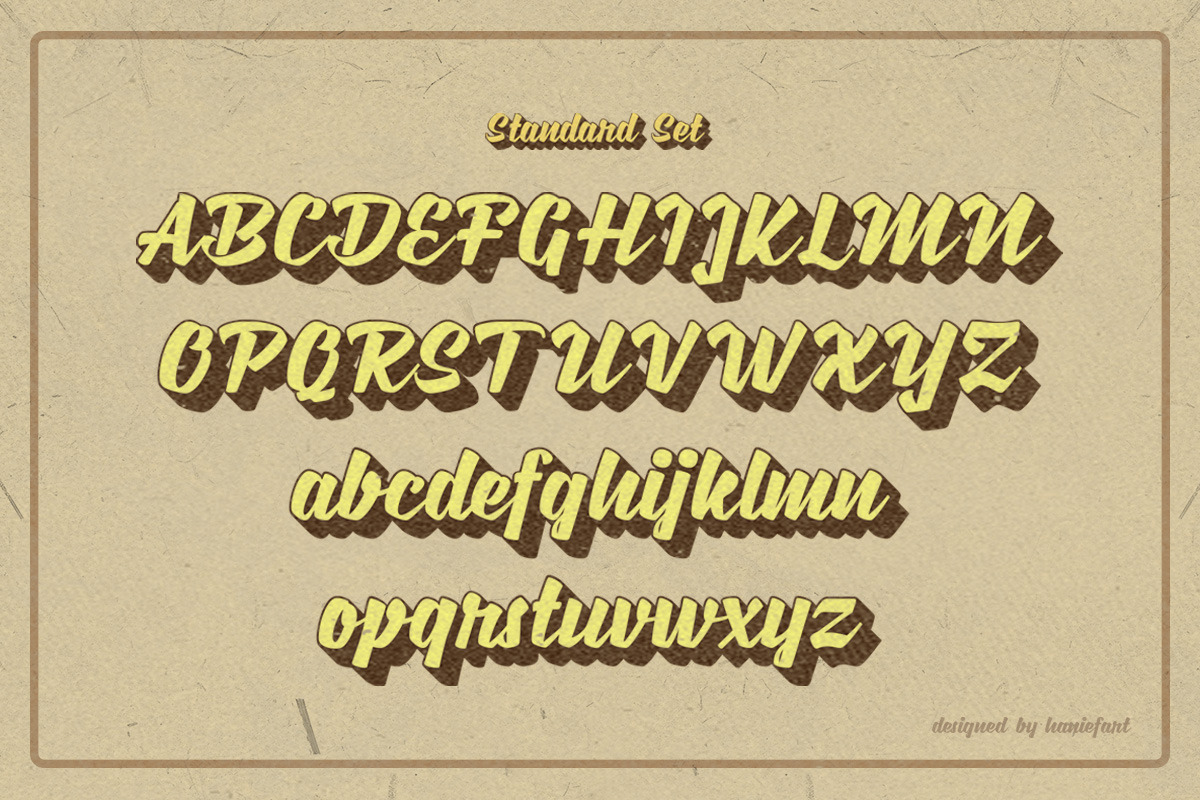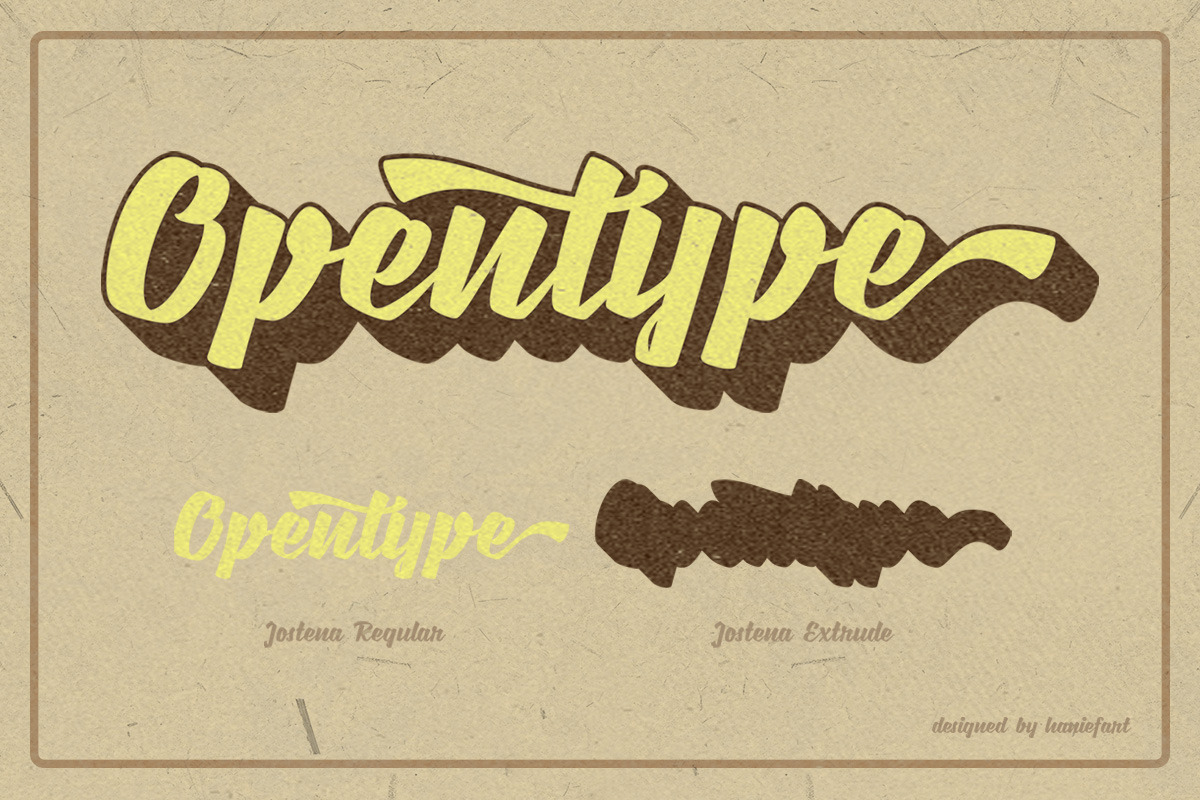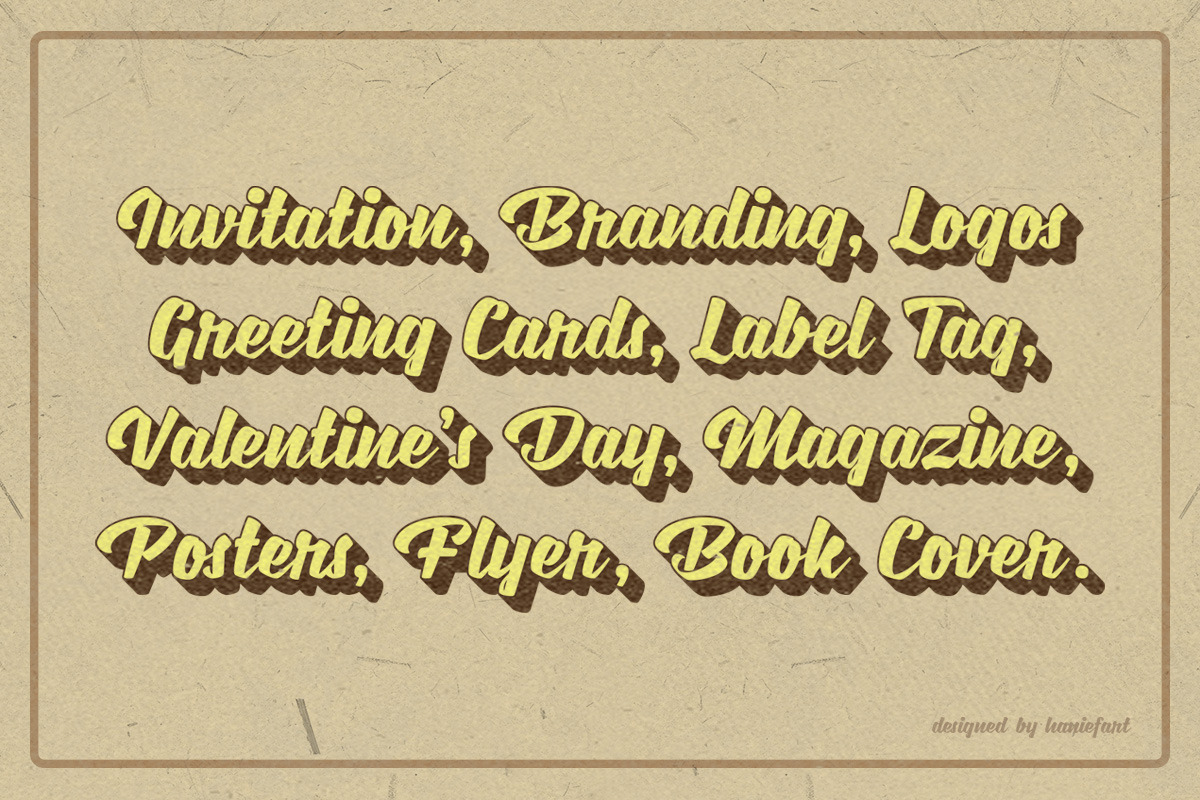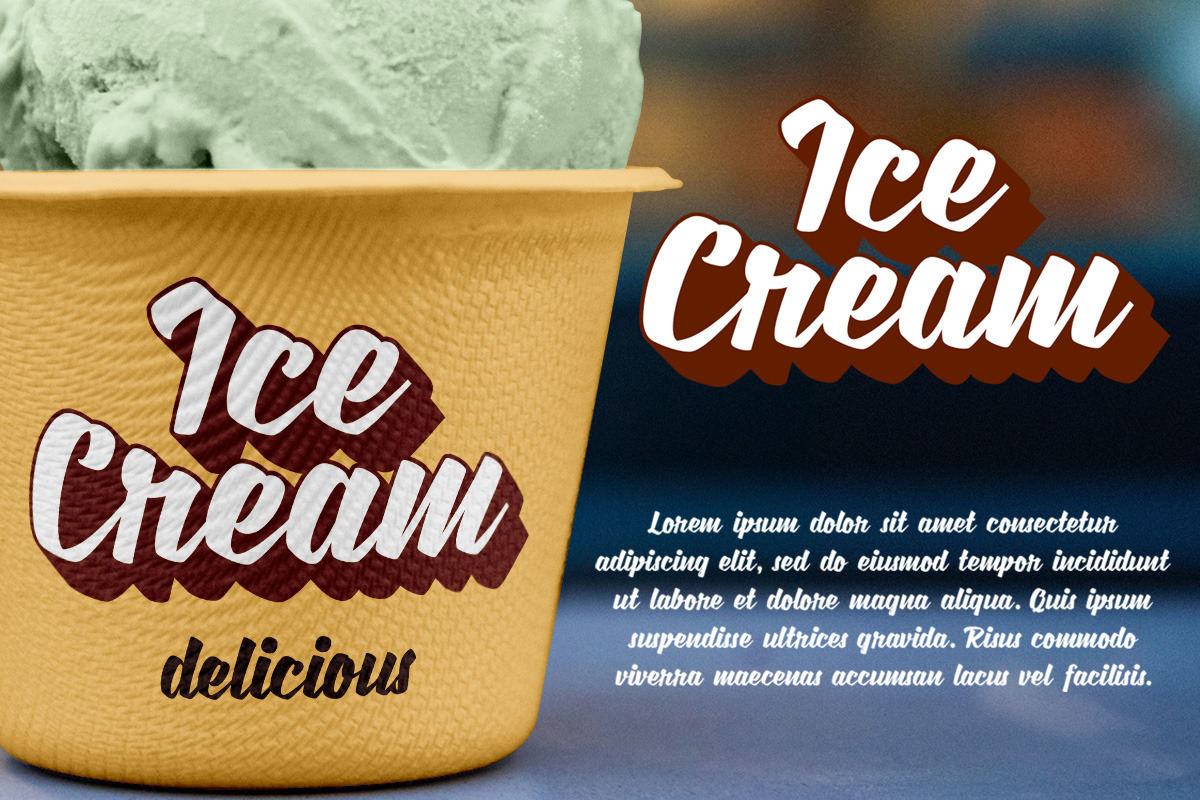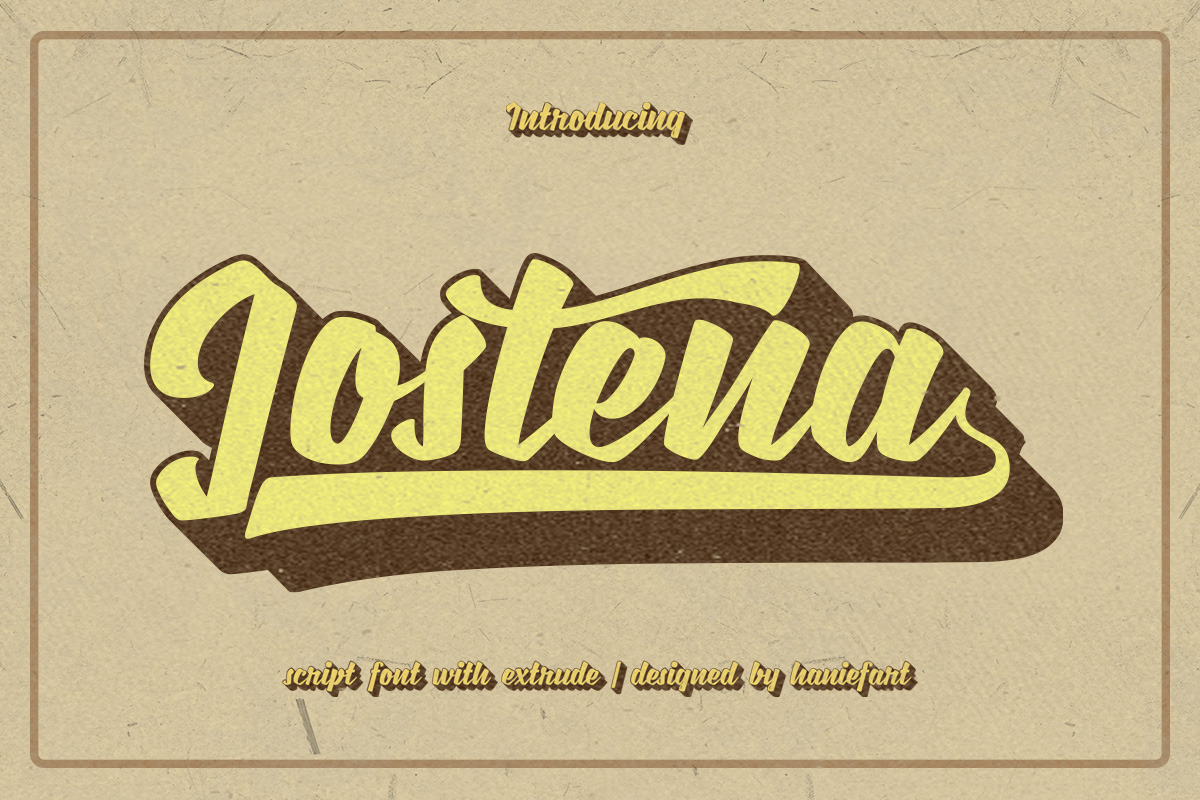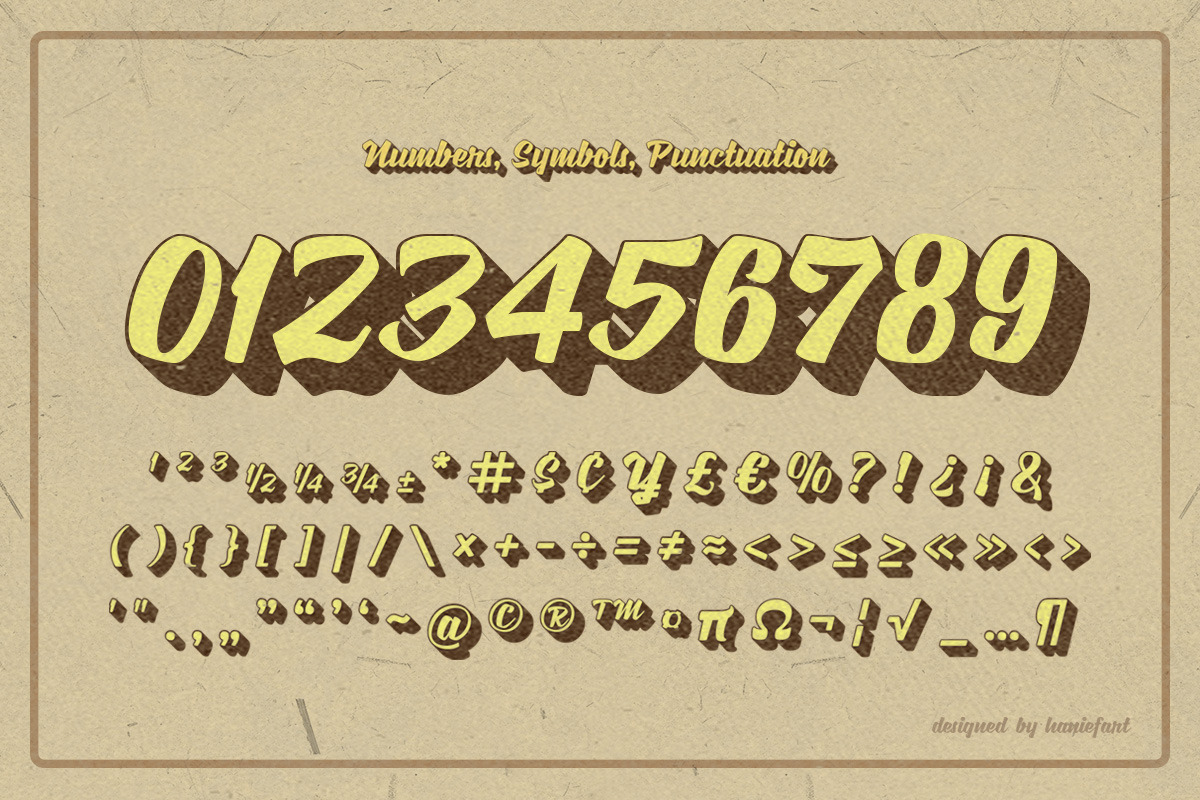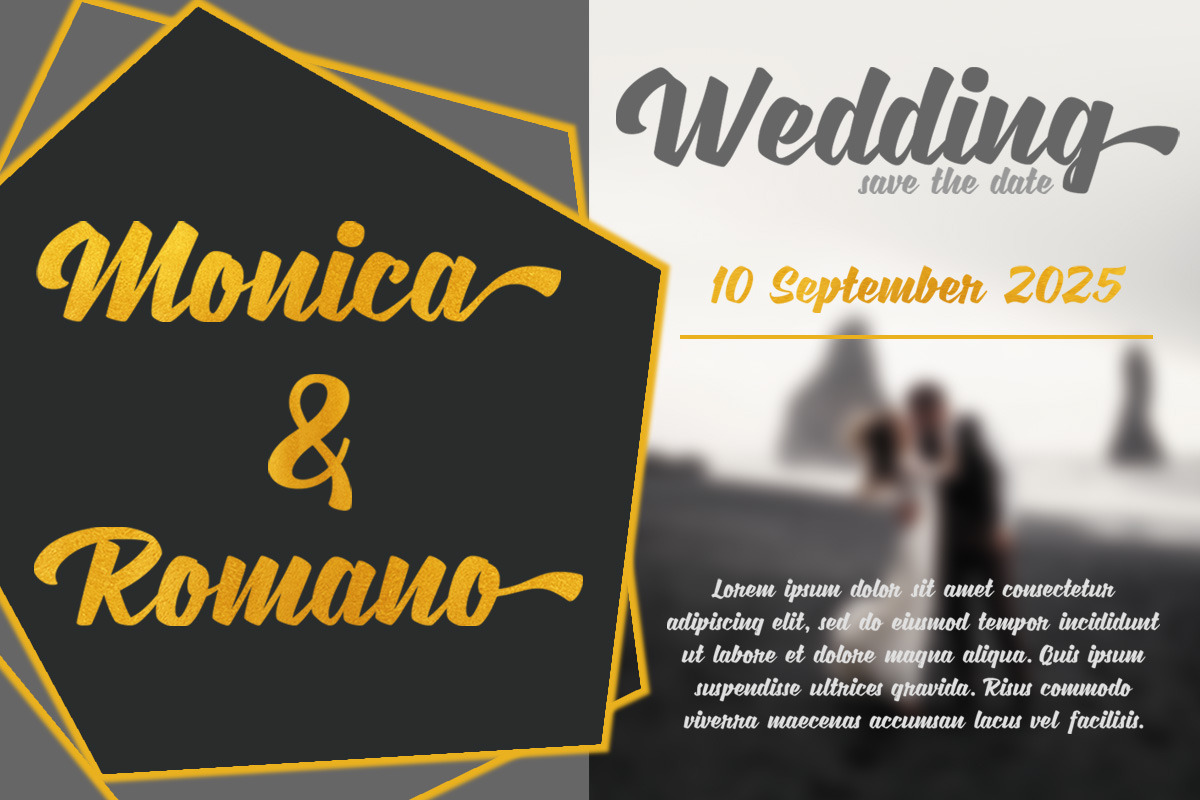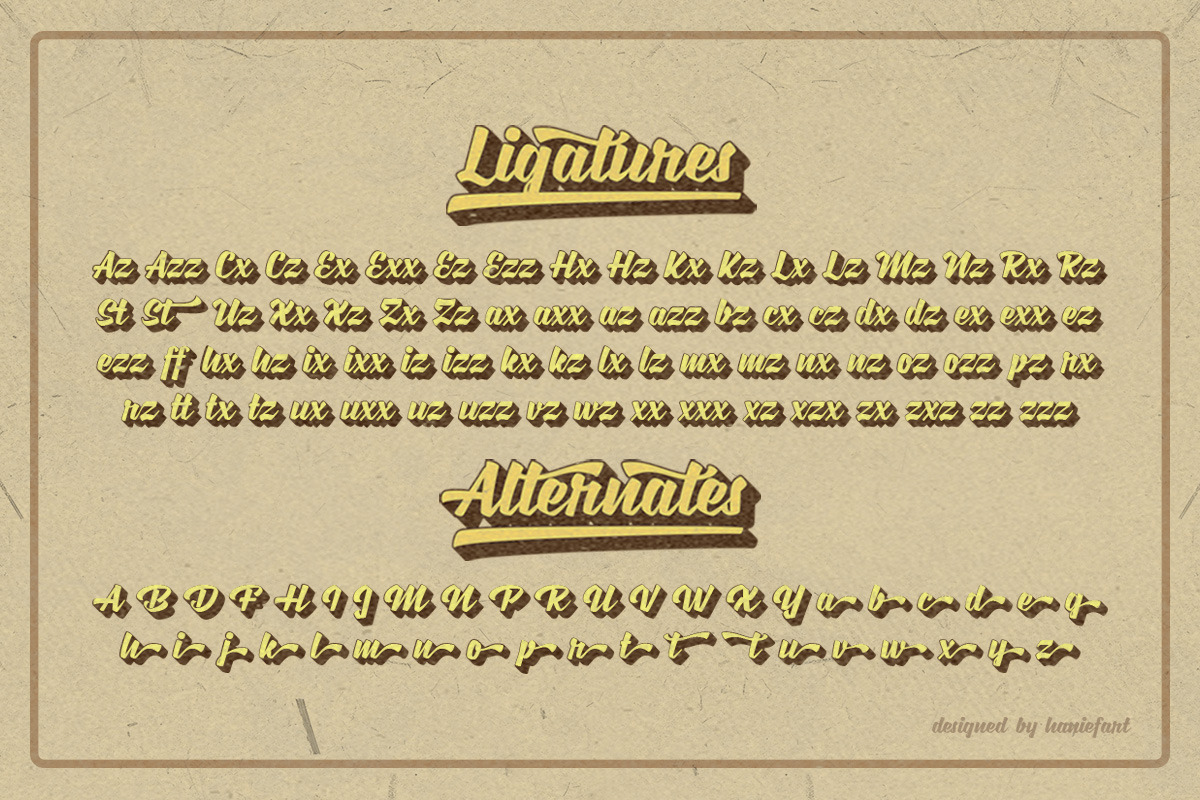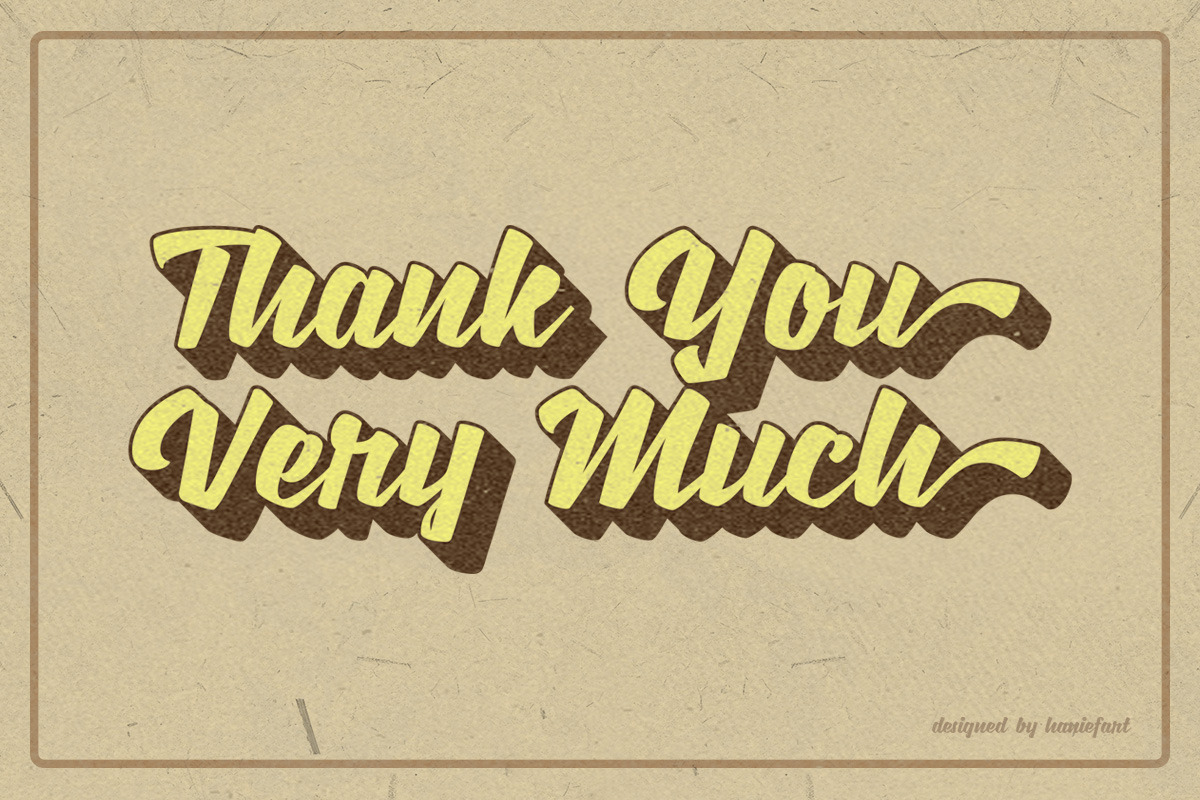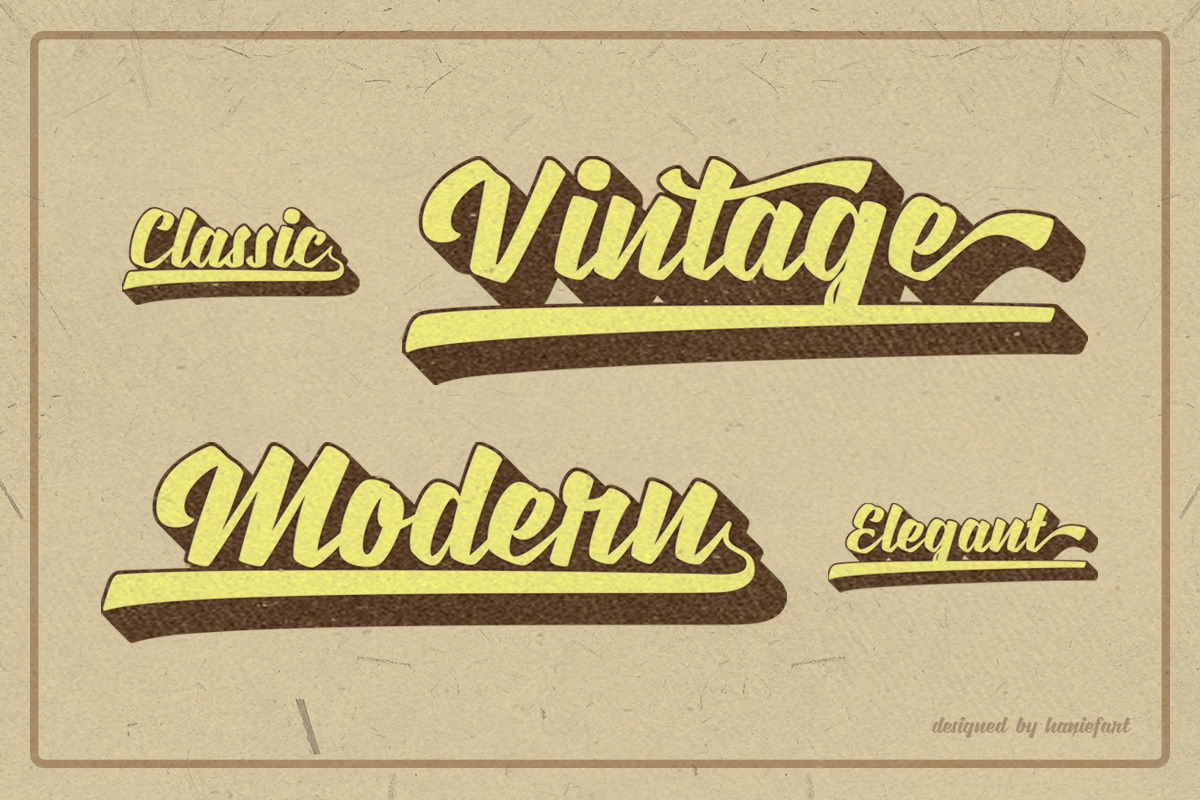
Jostena - Script Font With Extrude
Jostena is a captivating handcrafted script typeface with a painterly signature. Its shapes and variations exude a captivating charisma, adapting to your client's project and infusing the charm of this script font into every design. Jostena's versatility illuminates everything from branding to apparel design, with a powerful impact across t-shirts, magazines, logos, and headlines. Infuse your flyers and posters with Jostena's charm, systematically enhancing its aesthetic appeal.